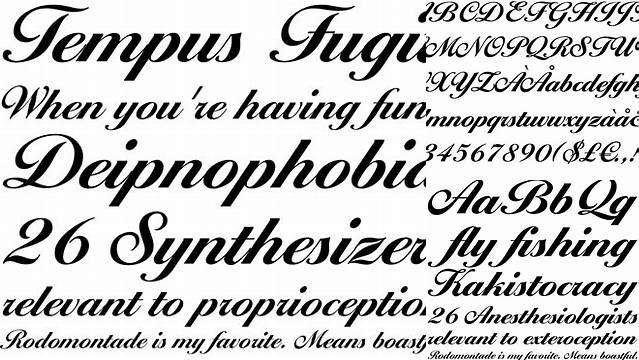
Hey design enthusiasts! Are you on the hunt for a font that exudes both elegance and a touch of boldness? Look no further, because we're diving deep into the world of Ballantines Script EF Bold, a font that's captured the hearts of designers worldwide. And the best part? You can snag a free download to spice up your projects. Let's get into the nitty-gritty, shall we?
What Makes Ballantines Script EF Bold Special?
First things first, what exactly is Ballantines Script EF Bold? It's a striking typeface characterized by its fluid, handwritten style, with a bold weight that demands attention. The 'EF' in the name often refers to the foundry that created it, and 'Script' tells you it's all about that beautiful, flowing calligraphy look. The 'Bold' is the star of the show here; it means it's thicker and more impactful than your standard script fonts. Ballantines Script EF Bold, in particular, is known for its well-balanced letterforms, the way each character connects, and the overall aesthetic it brings to the table. It's the kind of font that can transform a simple design into something extraordinary. Whether you're working on wedding invitations, branding materials, or social media graphics, this font can instantly elevate your project. The charm lies in its versatility. You can use it to create a vintage feel, a modern look, or even something that's a bit edgy, all depending on how you use it.
This font is a real workhorse. Imagine crafting a logo that needs to feel both established and unique. Ballantines Script EF Bold could be your answer. Think about a website header or a social media post where you want to grab your audience's attention immediately. It is the kind of typeface that makes you look twice. It has a visual weight to it that other script fonts sometimes lack. And, of course, the fact that it's a script font means it’s inherently human and approachable. There's a warmth that comes with a handwritten feel, something that can make your designs feel more personal and relatable. The boldness adds a layer of confidence and authority, making it a great choice for projects where you want to make a statement. Overall, it's the combination of grace, readability, and impact that makes Ballantines Script EF Bold a standout choice. The free download option is just the cherry on top, giving you the chance to experience its magic without any initial investment. It's a font that can take your designs to the next level, helping you create visuals that are both beautiful and effective. It's a versatile font that is both elegant and striking, making it a go-to choice for many designers. It’s the perfect way to add a touch of sophistication to your designs.
Designing with Ballantines Script EF Bold: Tips and Tricks
Now that you've got the font, let's talk design! How can you make the most of Ballantines Script EF Bold? First off, think about where you'll use it. Because of its bold style, it's ideal for headlines, titles, and short, impactful phrases. Overusing it, particularly in blocks of text, can make it hard to read, so use it strategically. Pairing it with a complementary font is key. Consider a clean, sans-serif font for body text to create a balanced design. This contrast helps the script font stand out and makes the overall layout more readable. Experiment with the size and spacing. Play around with different font sizes to see what looks best. Sometimes a slightly larger size can make the font more readable, but avoid making it so big that it overwhelms the other elements. Kerning (the space between individual letters) is another thing to play with. You might need to adjust the kerning to get the perfect look. Too much or too little space can make the font look off. Consider the color palette. Ballantines Script EF Bold works well with various colors, but you might want to test it against your chosen background colors to make sure it's clear and easy to read. Light-colored fonts on dark backgrounds and vice versa often work best. Think about the context. Is this a wedding invitation, a logo, or a social media post? The context will influence how you use the font. For a wedding invitation, you might use it in the names of the couple or the date. For a logo, it might be part of the brand name. In a social media post, it could be used for a catchy quote. Always keep readability in mind. While the font is beautiful, its primary function is to communicate. Make sure it's easy to read, and that the message is clear. Experiment with different design software. You can use the font in various design programs like Adobe Photoshop, Illustrator, Canva, and more. Each program offers different features and tools that allow you to manipulate and customize the font to fit your needs. Be prepared to experiment to get the perfect look. Design is all about trial and error, so try different combinations, colors, and layouts. Don't be afraid to experiment, play, and see what works best.
When designing with Ballantines Script EF Bold, think about your audience. Who are you trying to reach? What kind of message are you trying to convey? The font can help you convey your message. The way the font works visually also impacts how the audience perceives your brand or message. This makes the font selection essential. So, let the elegance of Ballantines Script EF Bold inspire your creative endeavors. The font is your canvas, and the possibilities are endless.
Common Uses for Ballantines Script EF Bold
What kinds of projects are a good fit for Ballantines Script EF Bold? This font is extremely versatile. Here are some of the most popular uses:
- Wedding Invitations: Its elegant and romantic style makes it perfect for names, dates, and special messages.
- Logos and Branding: Creates a memorable brand identity, especially for businesses that want a touch of sophistication.
- Social Media Graphics: Ideal for creating eye-catching headlines and quotes on platforms like Instagram and Pinterest.
- Website Headers: Can be used for website headers and banners, making your website look more attractive.
- Greeting Cards: Adds a personal and heartfelt touch to your cards, perfect for special occasions.
- Packaging Design: Elevates the design of product packaging with its graceful script.
This font is great for all of those projects and more. The bold style of the font means it is a great choice for grabbing attention, but is best used for shorter words, phrases, and titles. When used sparingly, it adds a touch of sophistication and elegance to any project. It's like the star of the show when it comes to your designs.
Conclusion: Unleash Your Creativity
Ballantines Script EF Bold is a wonderful font that can really enhance your designs. With a free download available, it's accessible for any designer, no matter your budget. Whether you're working on a personal project or a commercial venture, this font gives you a way to create visuals that are elegant, bold, and utterly captivating. With its fluid style and attention-grabbing weight, it's an excellent choice for titles, headlines, and various design applications. Be sure to explore the font, experiment with different applications, and let your creativity flow. Happy designing!